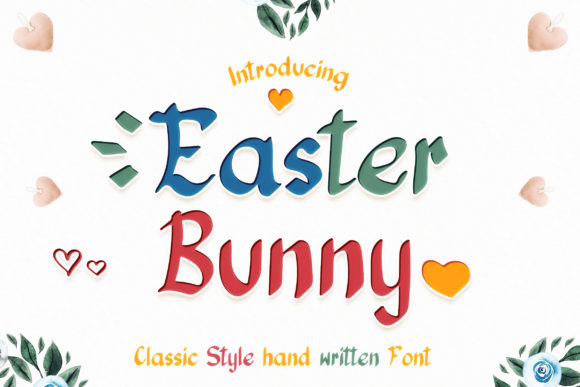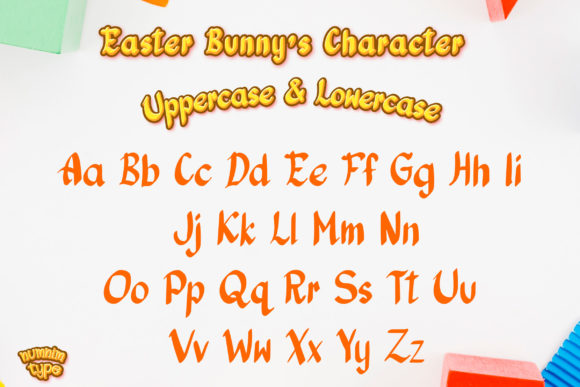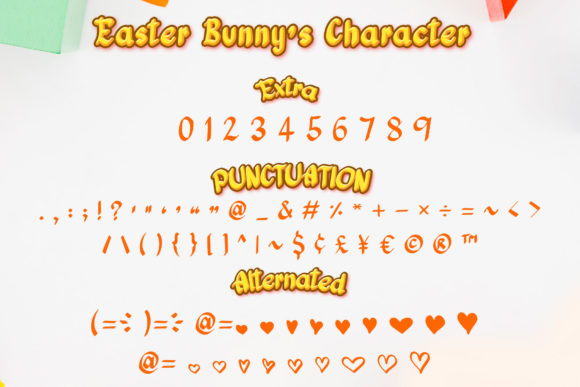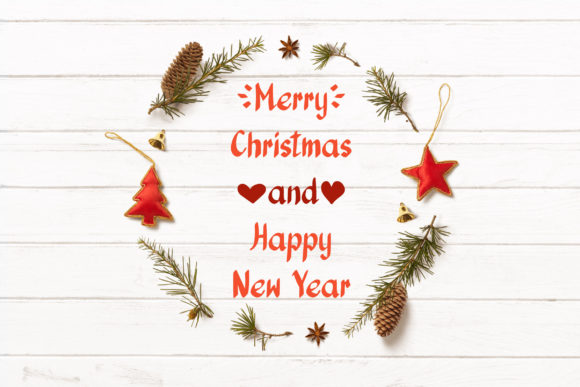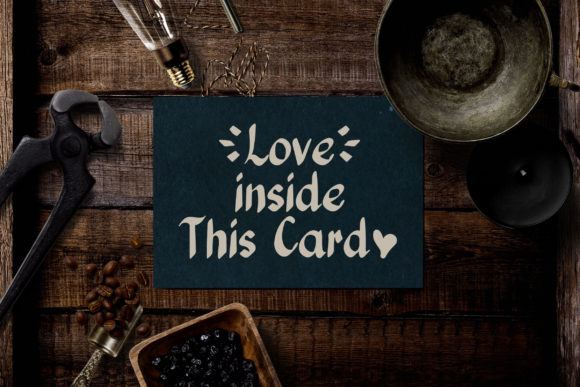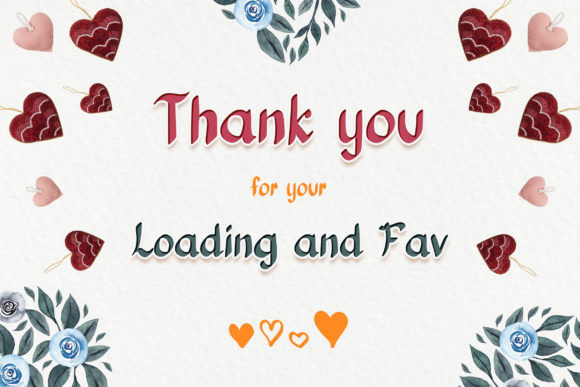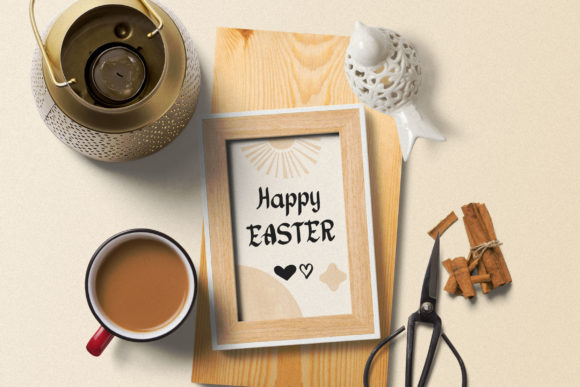
Easter Bunny Font
About Easter Bunny Font
Easter Bunny is a joyful and friendly handwritten font, featuring cute doodle elements. Fall in love with its sweet, versatile style and use it to create lovely designs for school or children related.